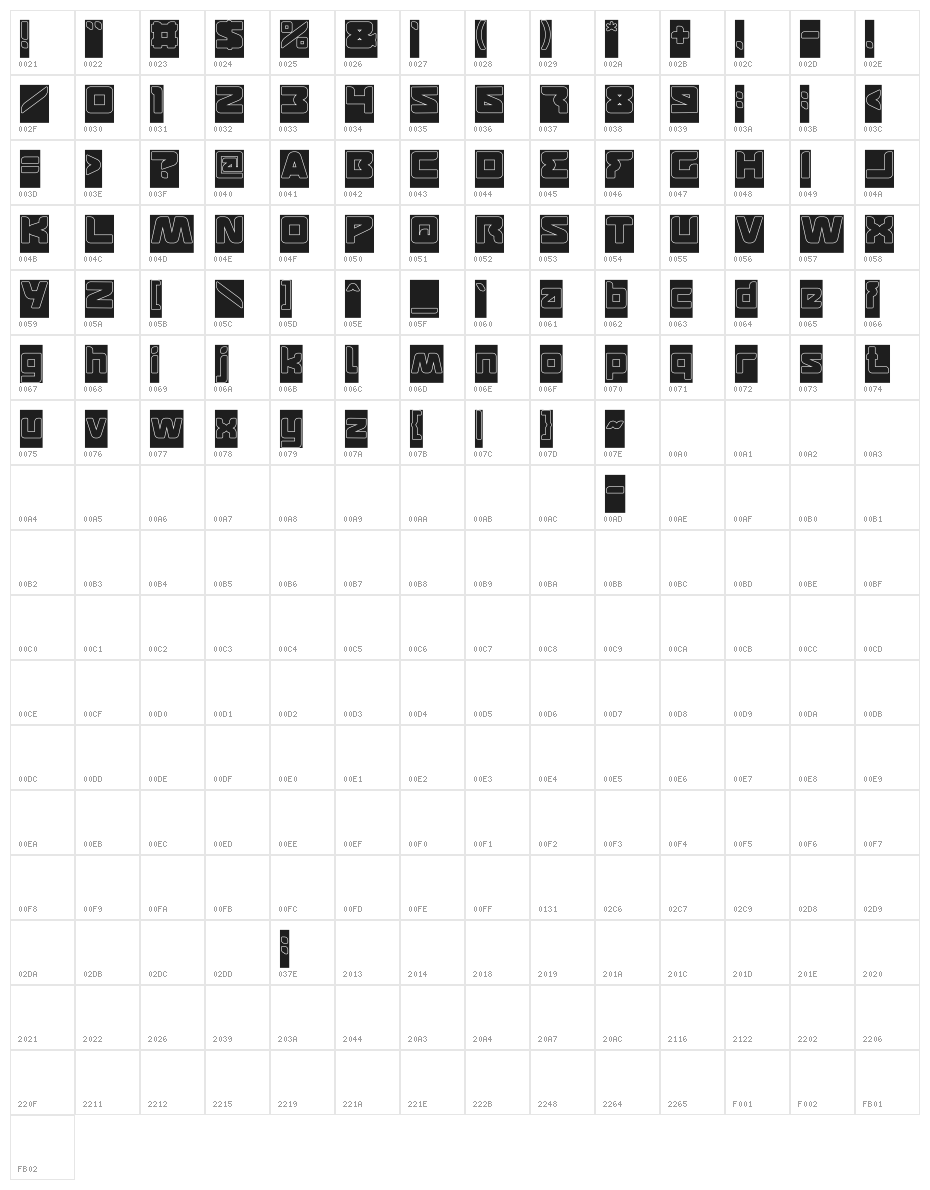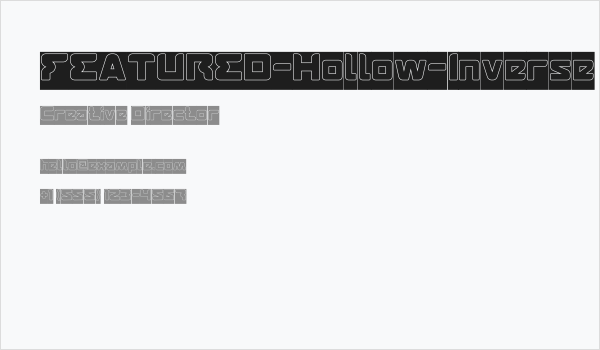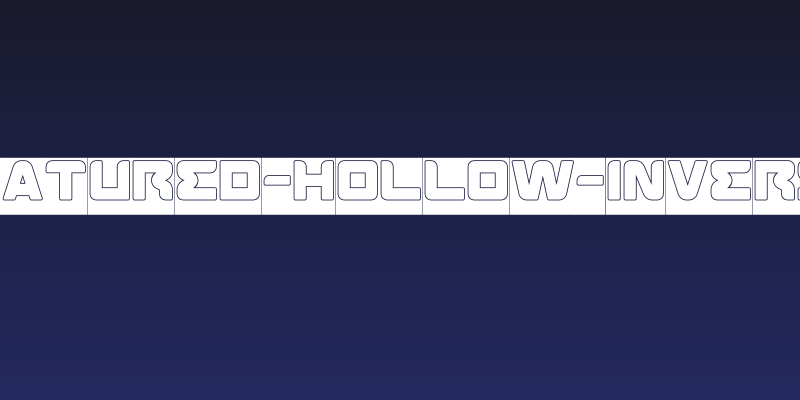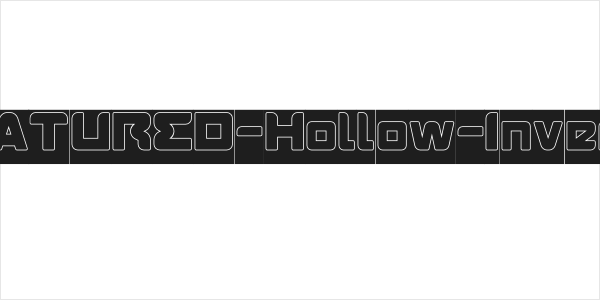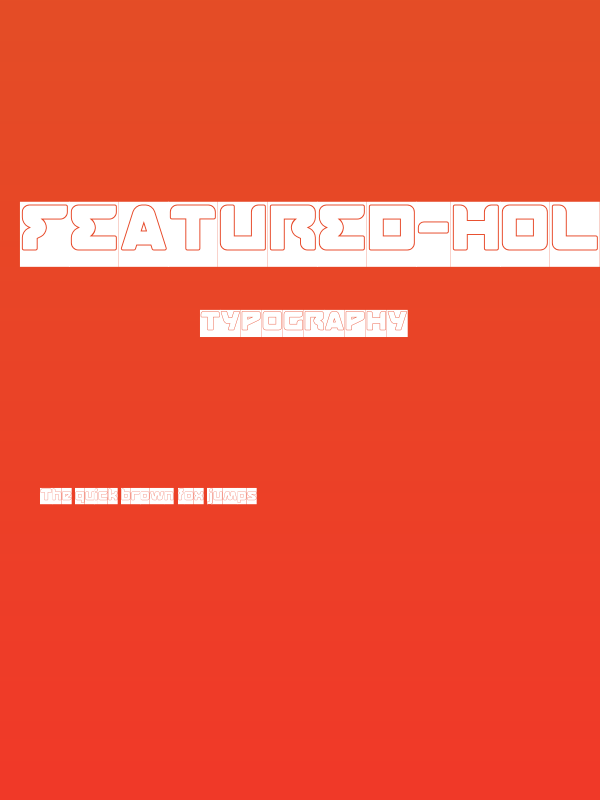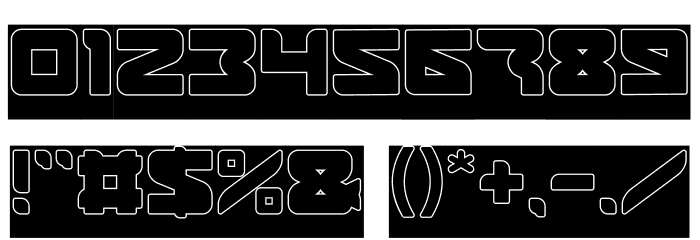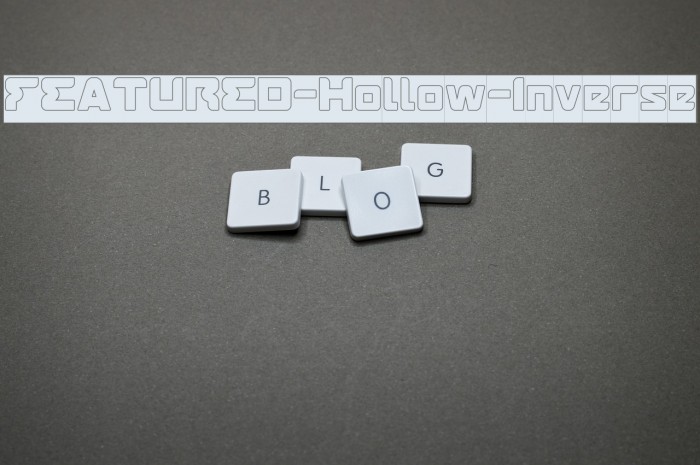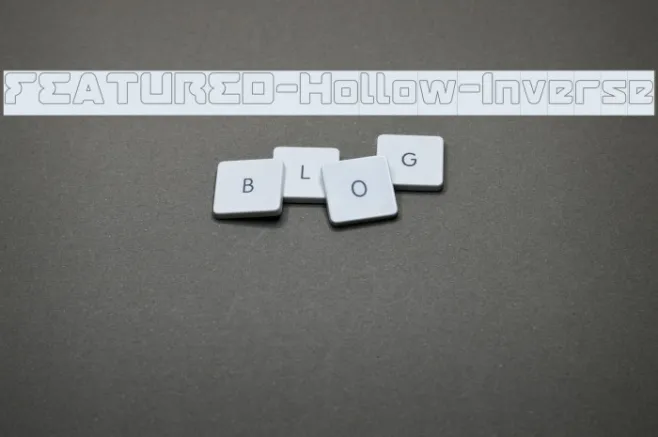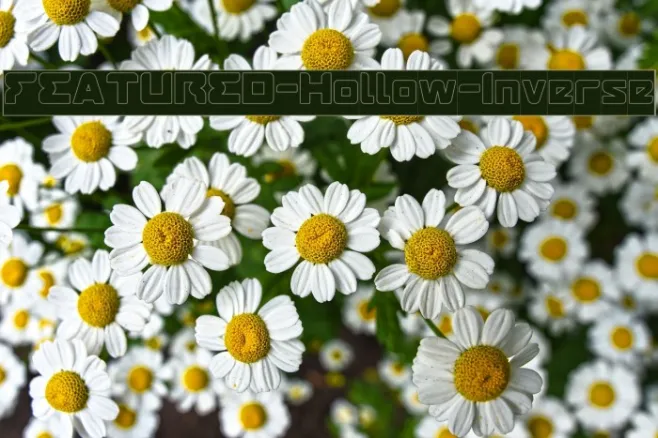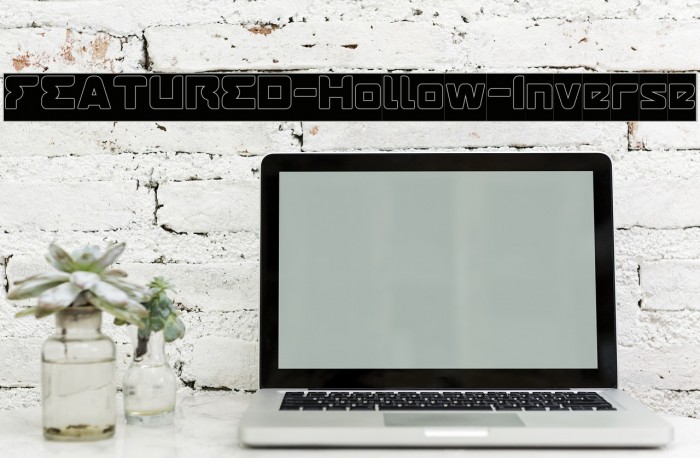
FEATURED-Hollow-Inverse Font
FEATURED-Hollow-Inverse Description
This font features a bold, hollow design with a futuristic and geometric aesthetic. The characters are outlined, creating a striking inverse effect that emphasizes the negative space within each letter. The uppercase and lowercase letters maintain a consistent style, with sharp angles and clean lines that contribute to its modern appearance. The numerals and special characters follow the same design principles, ensuring a cohesive look across all elements. This font's unique style makes it ideal for projects that require a bold and eye-catching display.
| Proposed Projects | Ideal for posters, logos, video game graphics, and sci-fi themed designs. |